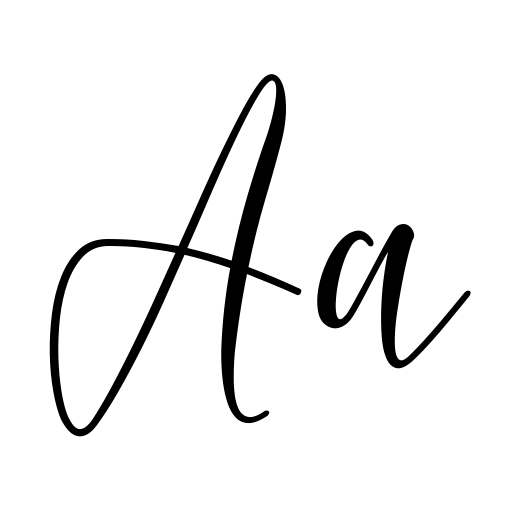
Andina Demo is a graceful script font with a slender, elegant style that features smooth, flowing strokes and delicate curves, giving it a refined, handwritten feel. Its light weight and high x-height make it both stylish and legible, perfect for use in invitations, branding, and upscale editorial designs where a touch of sophistication and warmth is desired. This font excels in conveying a modern yet classic elegance for creative projects needing a personal, artistic flair.
Andina Demo Font
About Andina Demo Font
| Designer | Sabertype Studio |